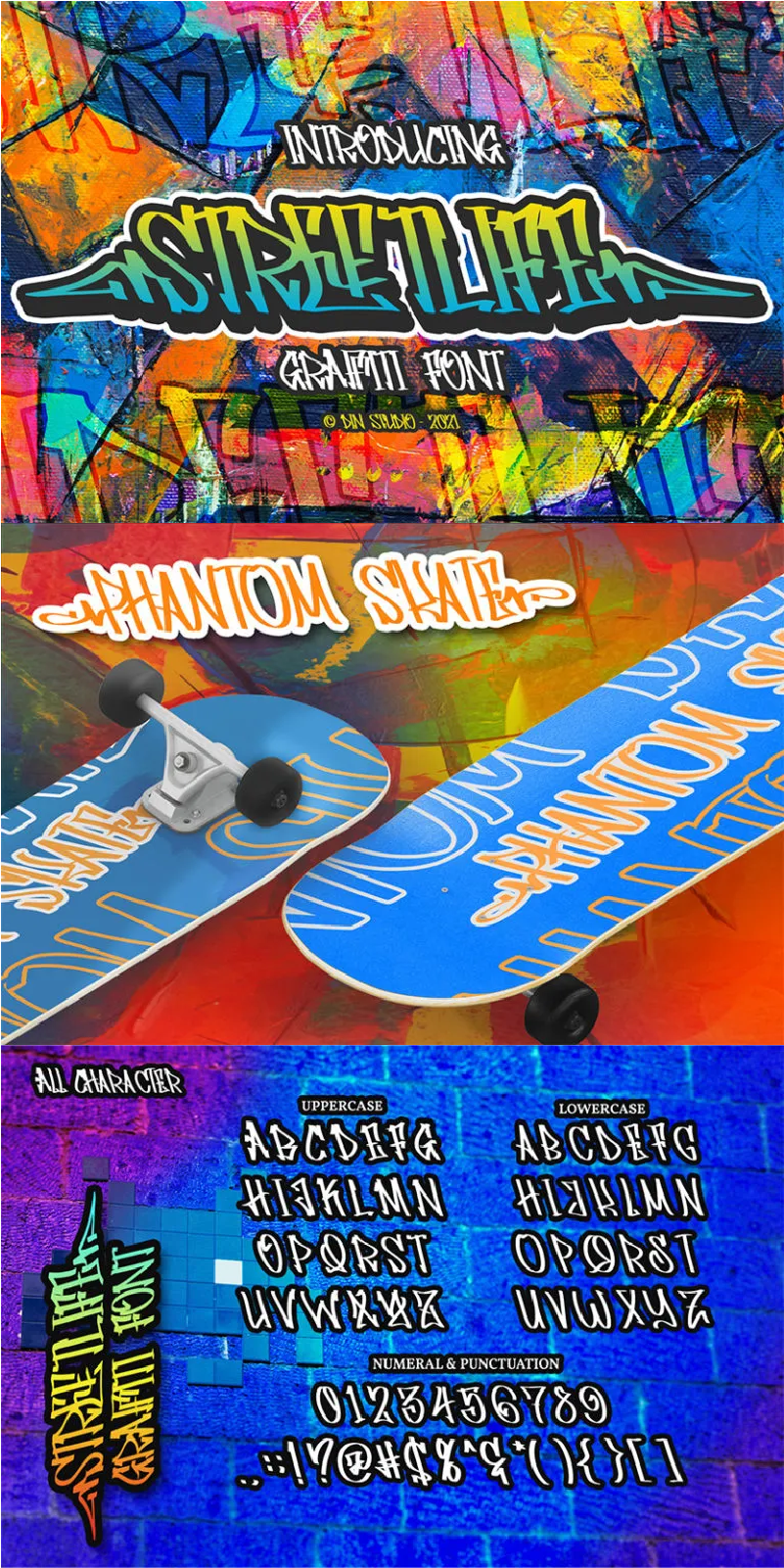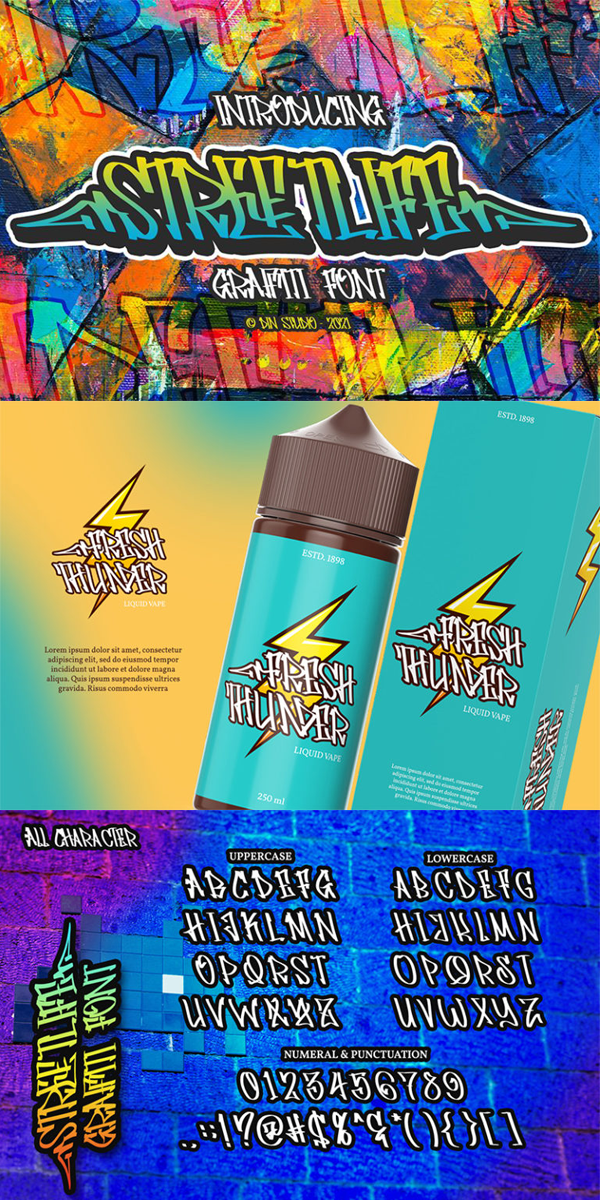
Streetlife Font
About Streetlife
Introducing Streetlife – A Grafiti Font.
Make your graffiti text dance with this wonderful, rhythmic font that captures motion and is bound to call attention wherever you use it. This font is perfect for logos, printed quotes, cards, packaging, website or social media branding, and many more!